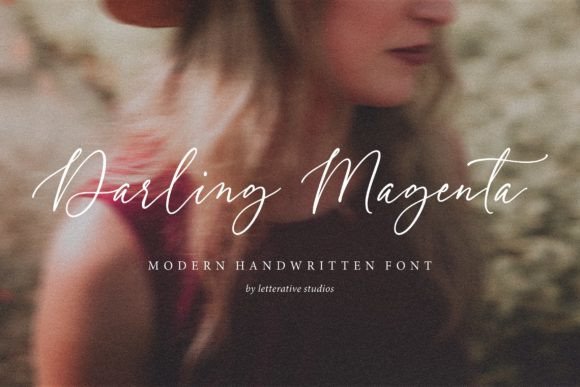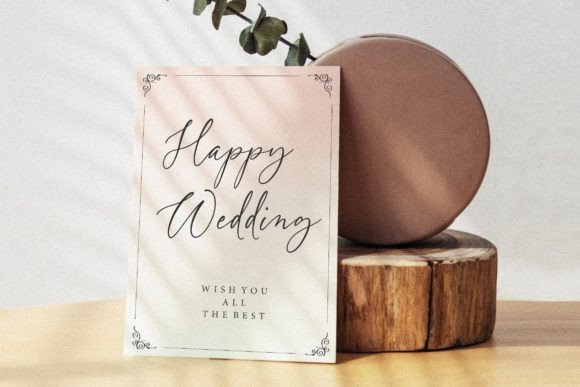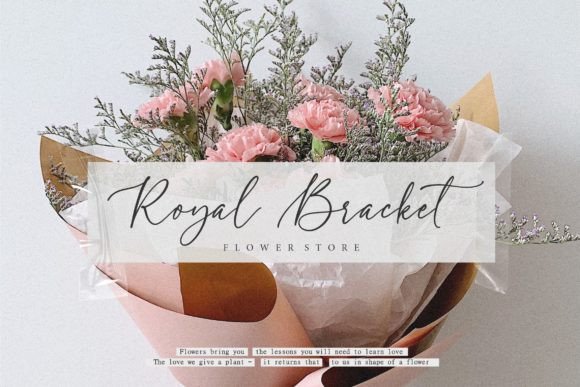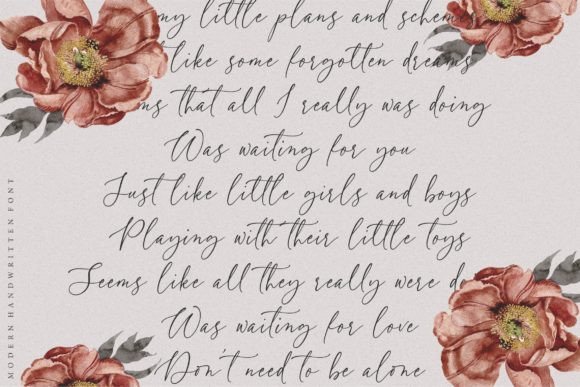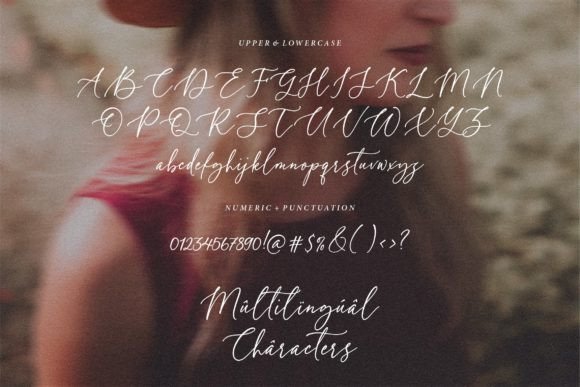
Darling Magenta
About Darling Magenta
Darling Magenta is a dazzling script font. This font is neatly crafted and highly detailed. Whatever the topic, this font will be a wonderful asset to your font library, as it has the potential to enhance any creation.